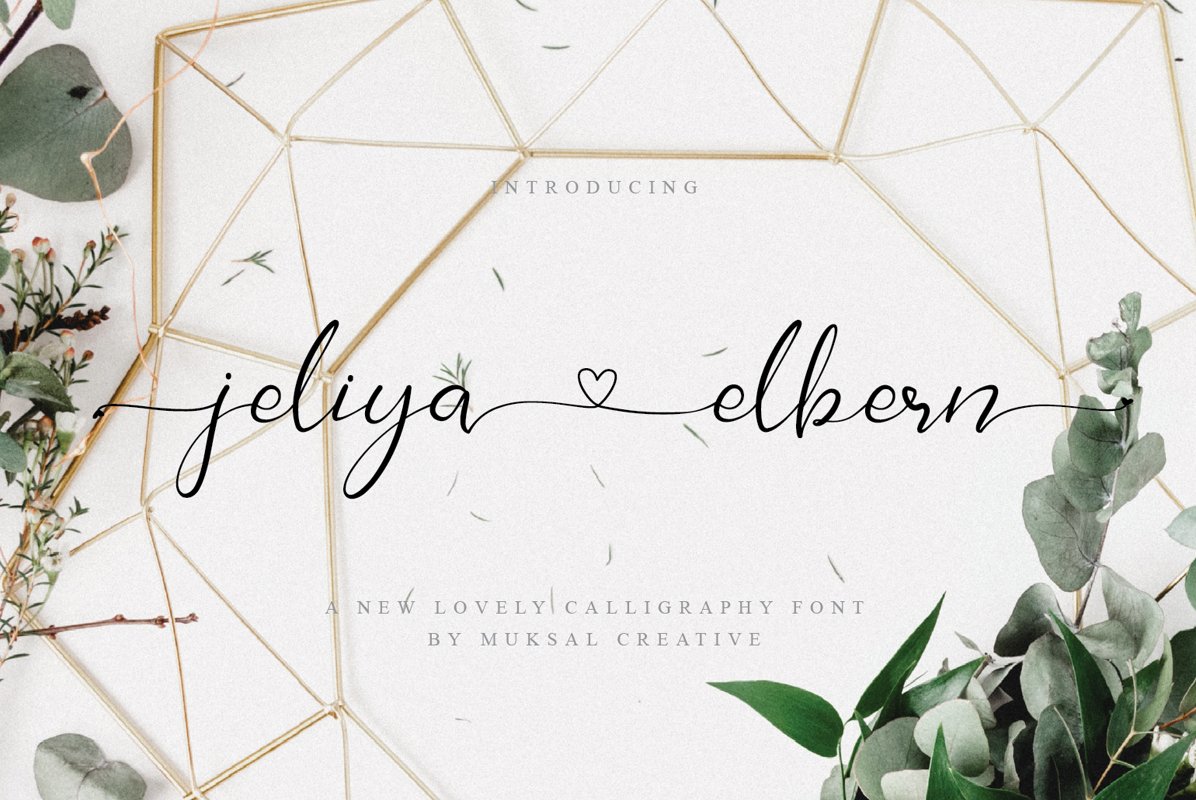
jeliya elbern
Jeliya elbern
Introducing jelia elbern A lovely  calligraphy.
Suitable for any design needs, modern invitation design, branding, blog design, modern advertising design, invitation, Art Quote, Home decor, Book/Cover Title, Invitation, special events, birthday, custom mug, pillow, t-shirts, any brush lettering needs and more.
jelia elbern A lovely  calligraphy comes with upper and lowercase Standard Characters, Punctuation, Numerals. And other Glyphs variation of the OpenType features such as Standard Ligature and Stylistic Set. Stylistic Set are available for lowercase characters. Accessible in the Adobe Illustrator and adobe indesign Glyphs panel, or under Stylistic Alternates in the Adobe Photoshop OpenType menu.